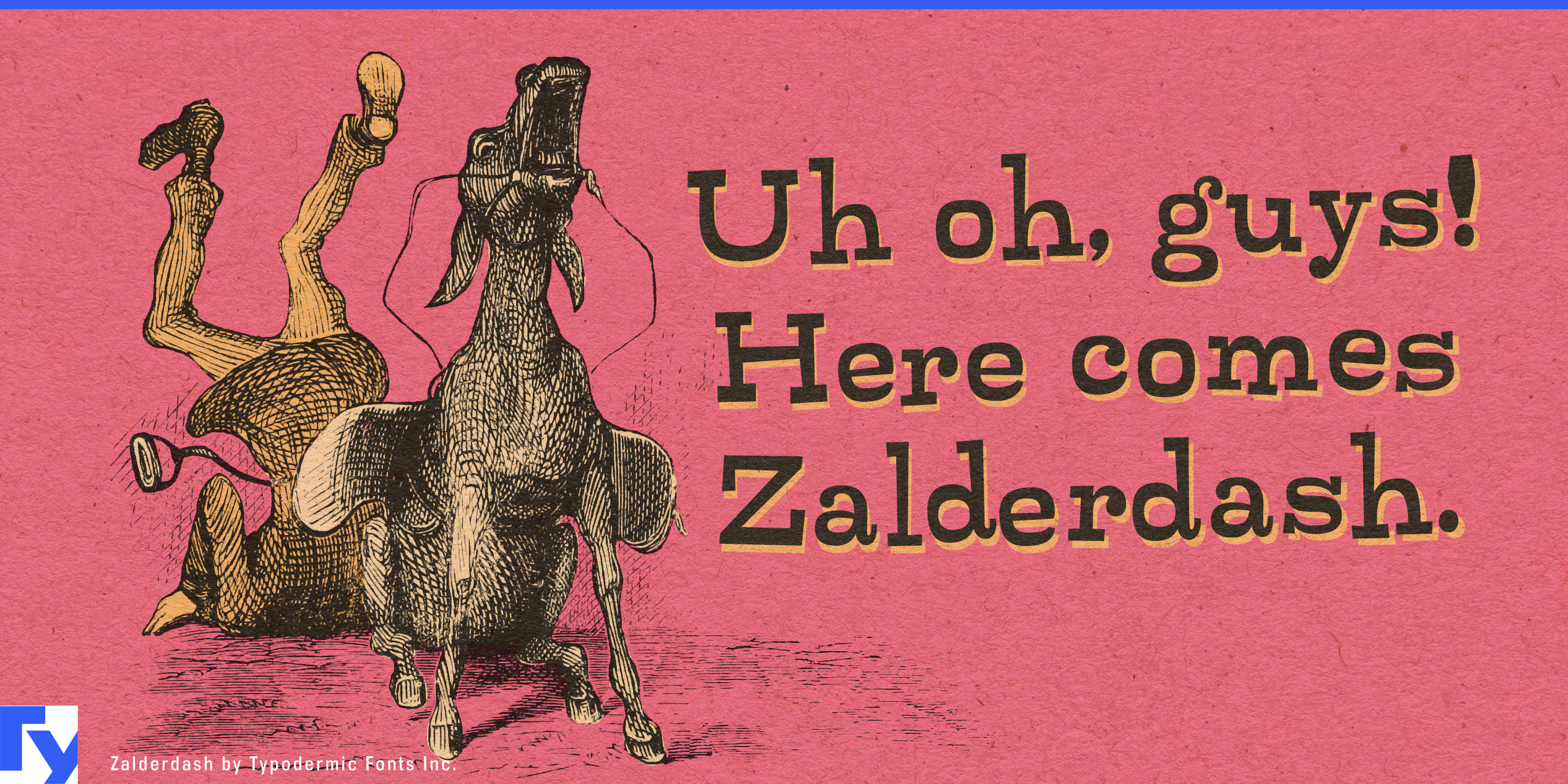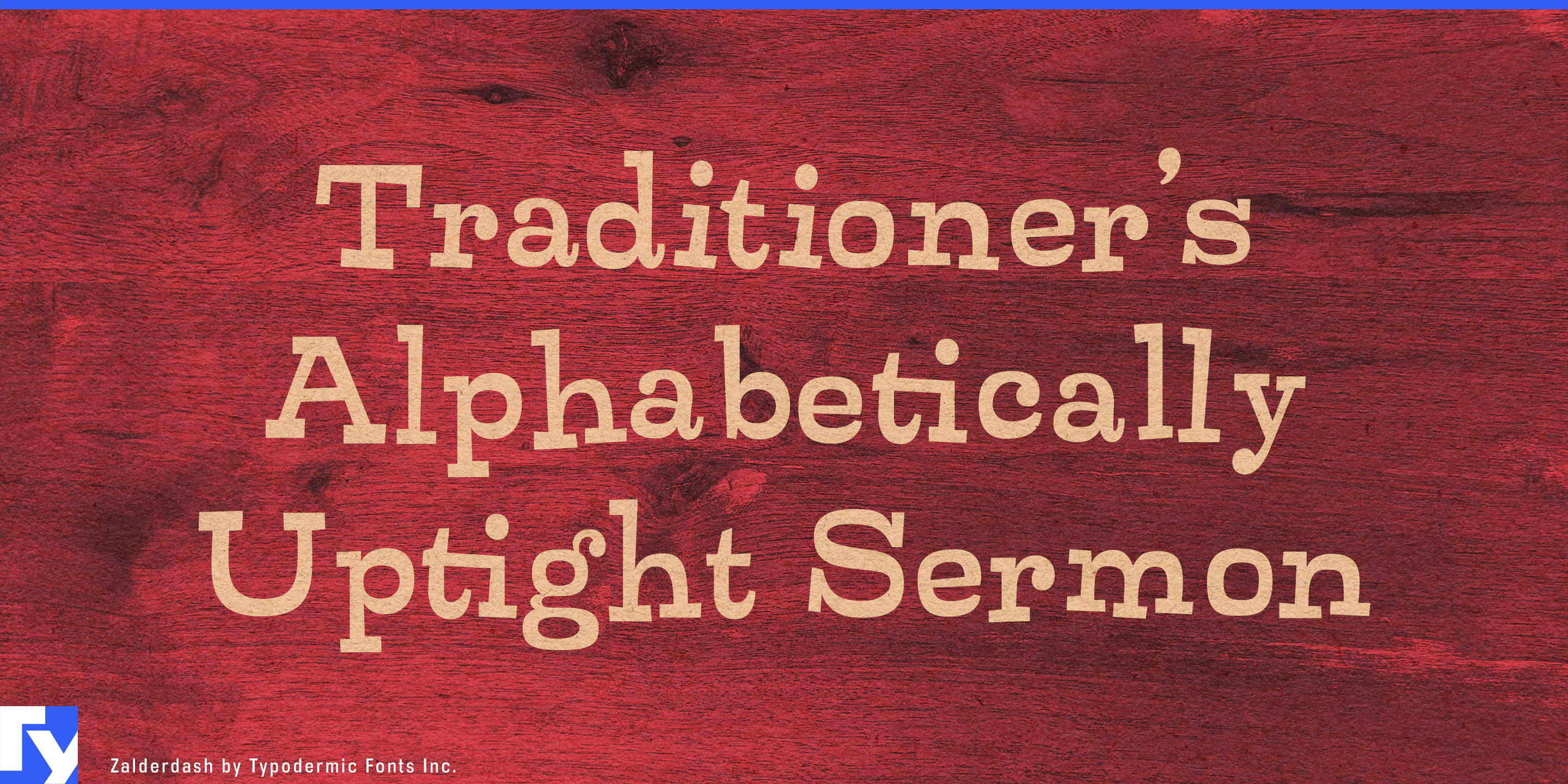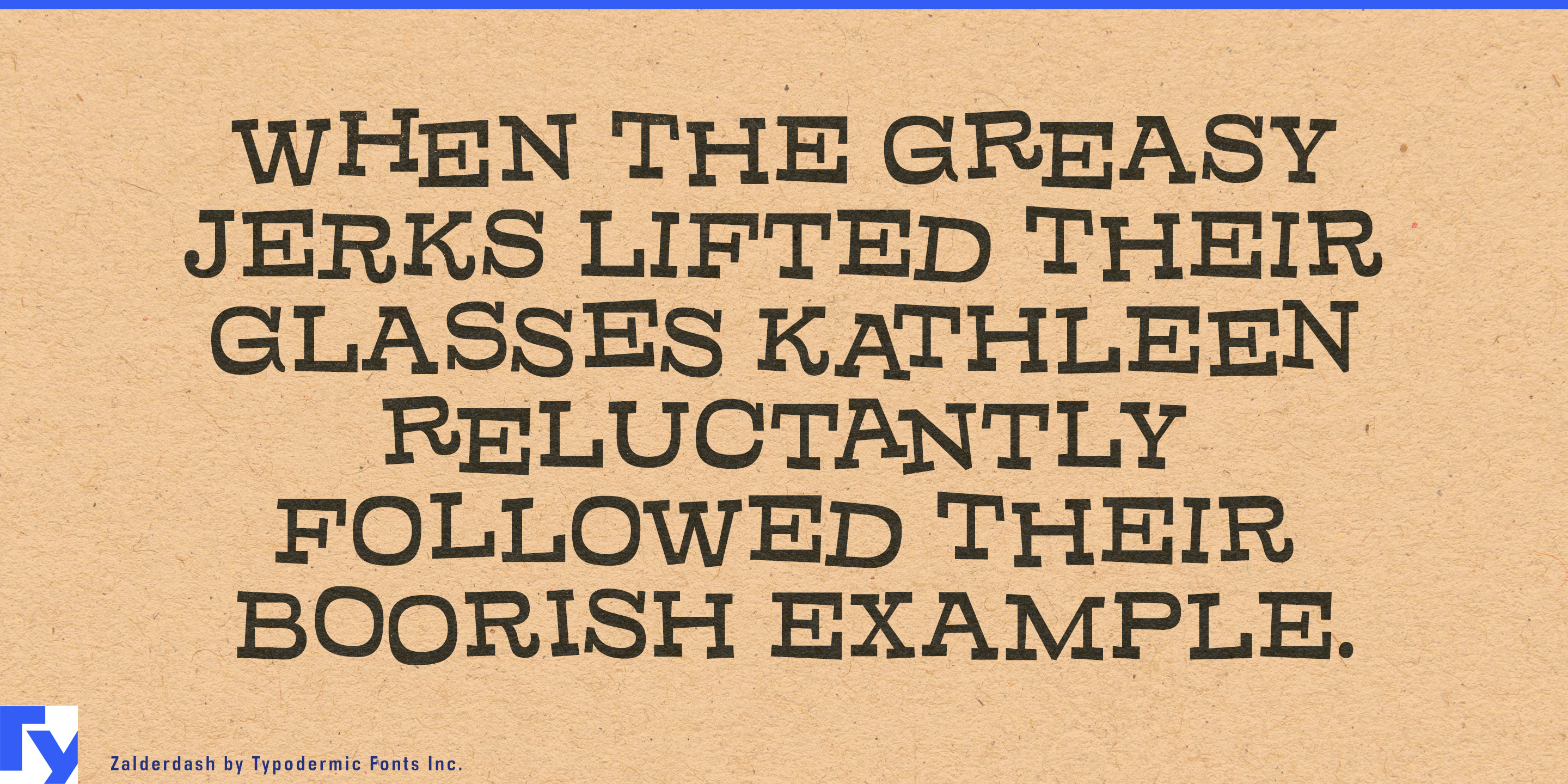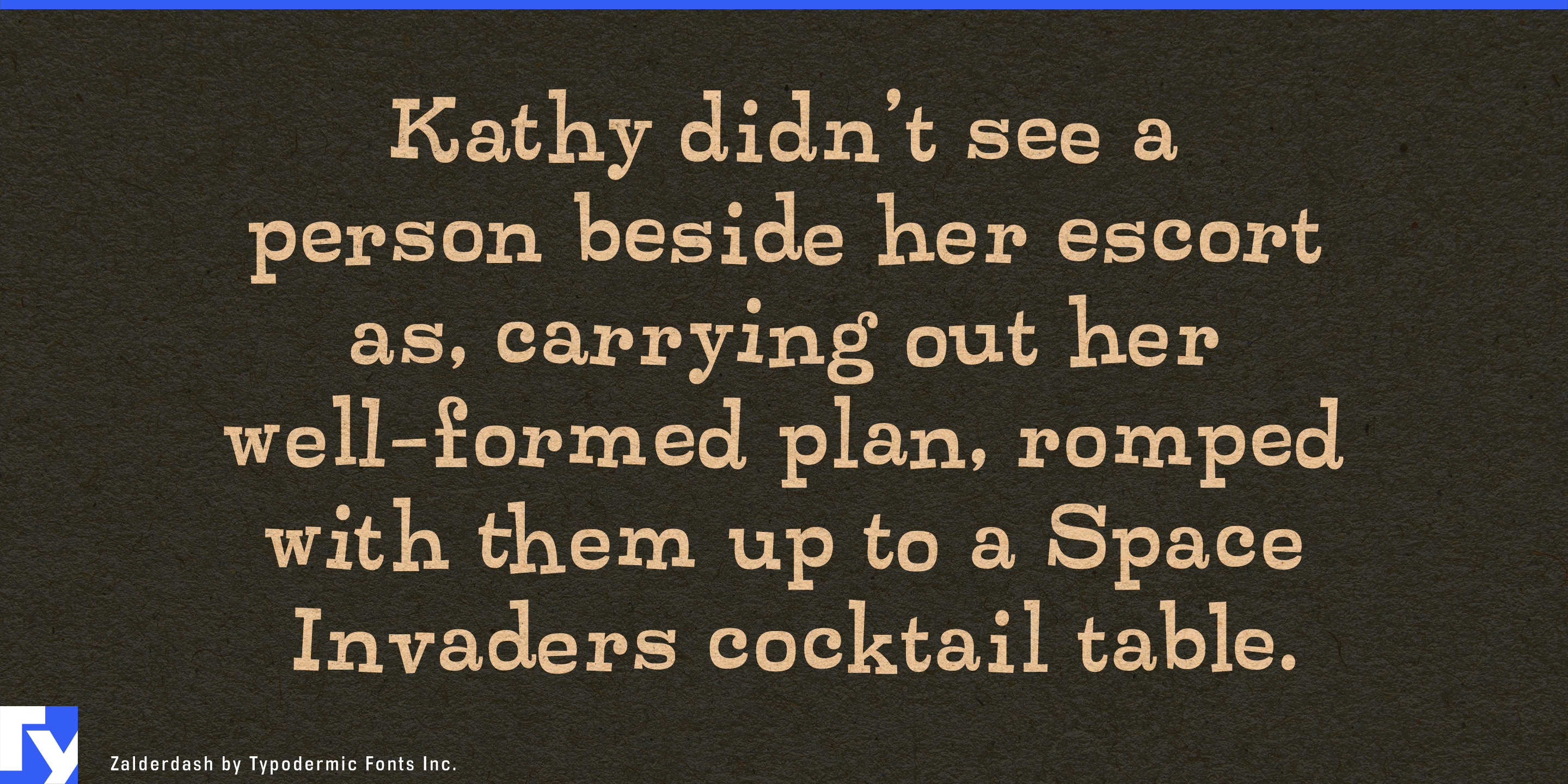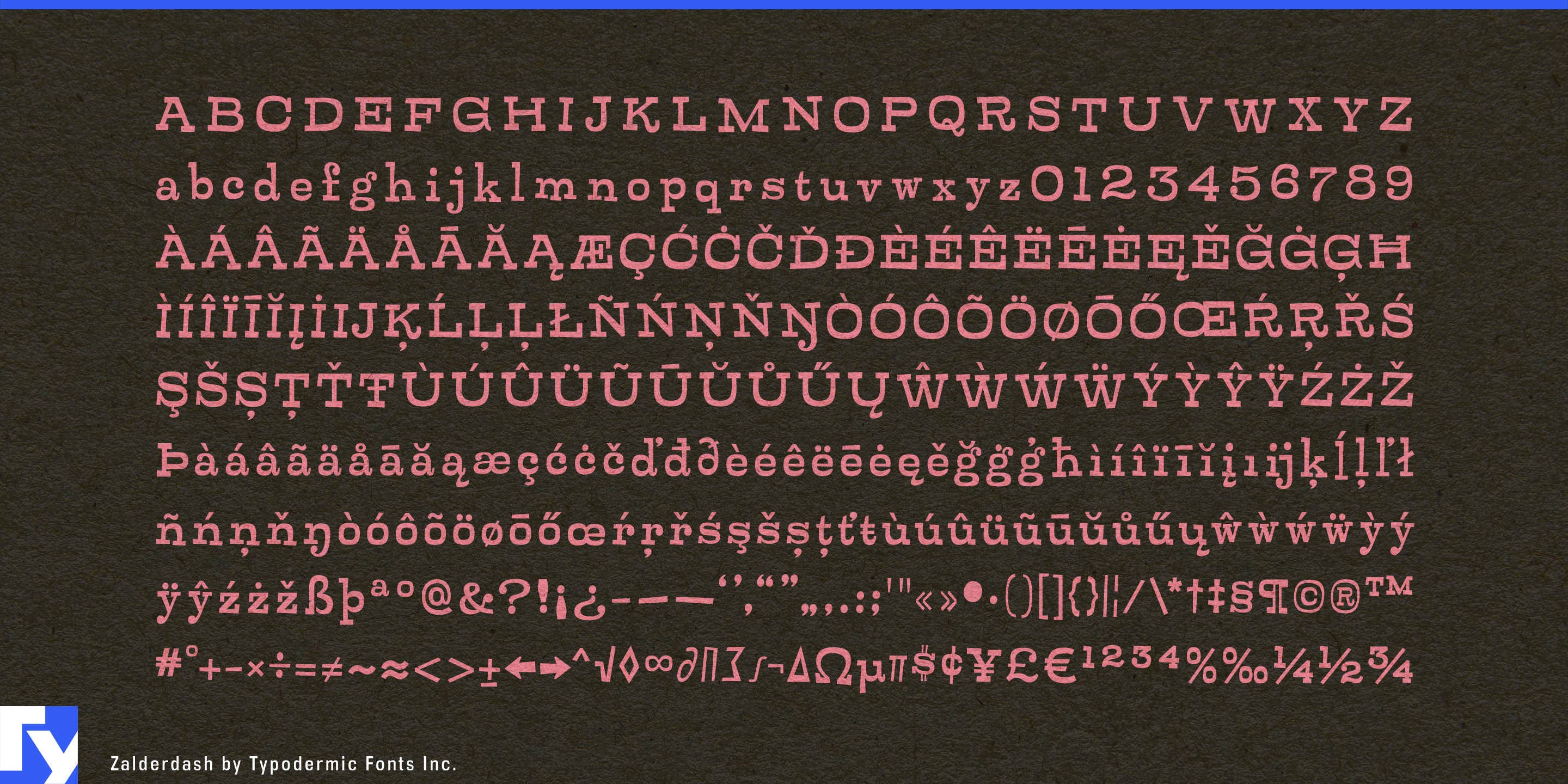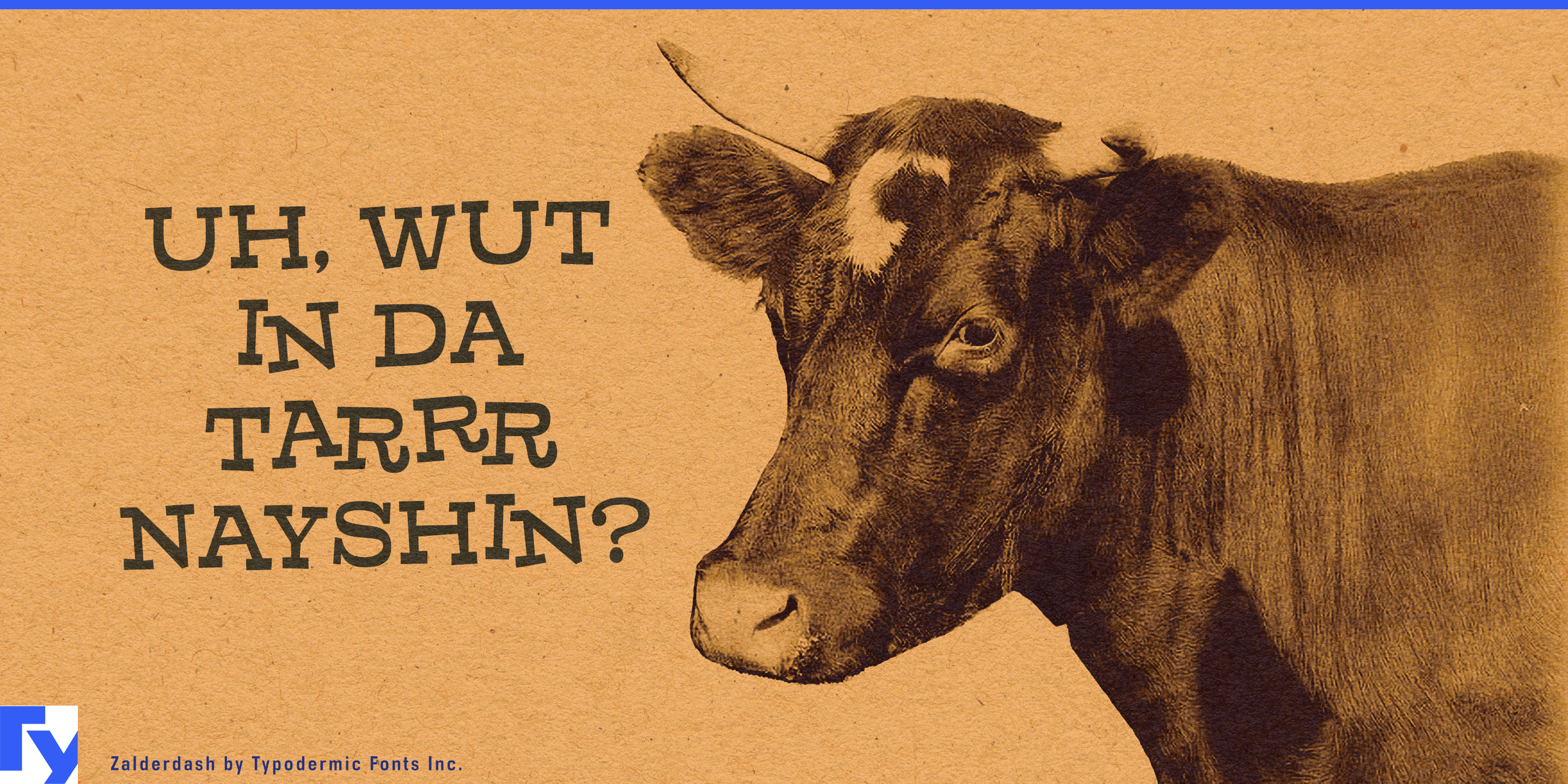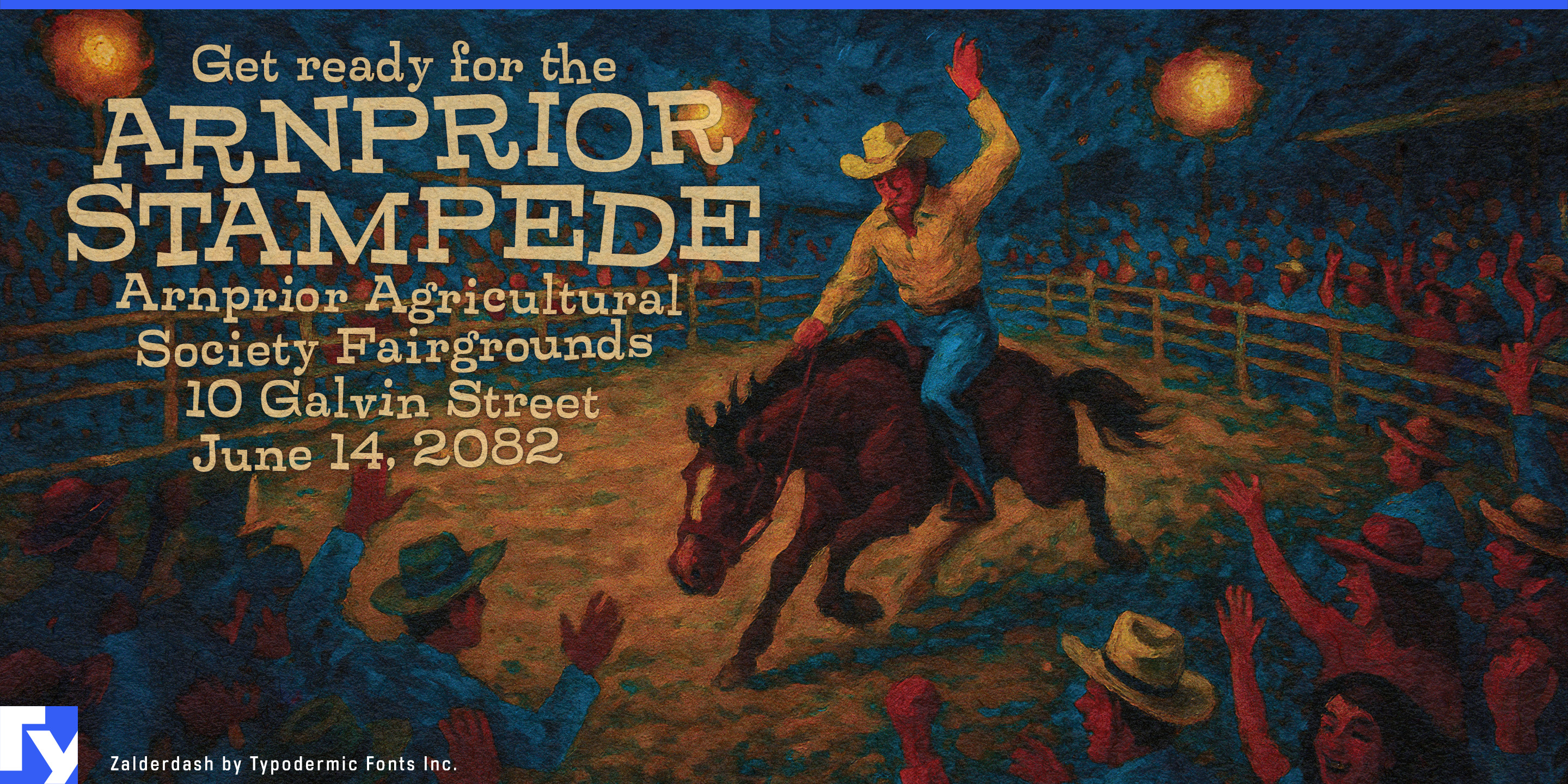
Zalderdash
Zalderdash is a raconteur with a flair for the ridiculous. Imagine a Clarendon slab serif that wandered into a traveling sideshow, picked up a few bad habits, and decided to reinvent itself as the life of every party. Its sturdy, blocky bones are rooted in 19th-century poster type, but the looseness in its stance and the gleeful wobble of its baseline give it a personality that’s anything but buttoned-up.
Type a word, and you’ll see the letters swap in and out like stage performers, each with its own little flourish. That touch of unpredictability adds the visual rhythm of vintage, hand-set wood type—perfect for when you want your headlines to feel spontaneous, handmade, and just a little mischievous. It’s equally at home in a parody newspaper, an over-the-top event poster, a craft soda label, or a tongue-in-cheek political pamphlet.
Zalderdash speaks a broad swath of Latin-based European languages, so its antics can travel from Lisbon street markets to Stockholm pop-up shops without losing the joke. Whether you’re dressing up a retro board game, spoofing a tabloid, or branding an artisanal hot sauce with more attitude than Scovilles, Zalderdash is your storytelling partner.
It’s not just “funny cowboy.” It’s eccentric uncle, unreliable narrator, and vaudeville host all rolled into one—ready to give your designs the kind of wink that keeps people looking twice.
- Slab serif
- Alternates